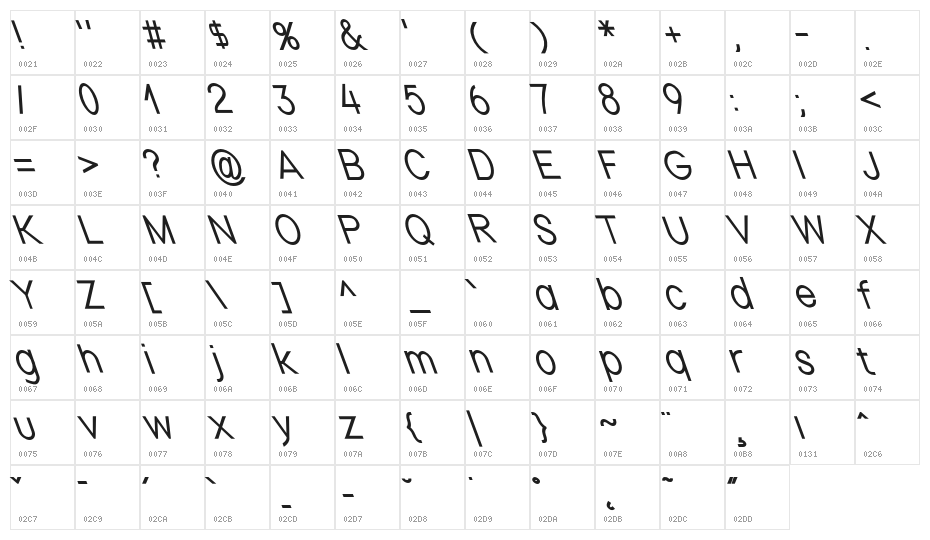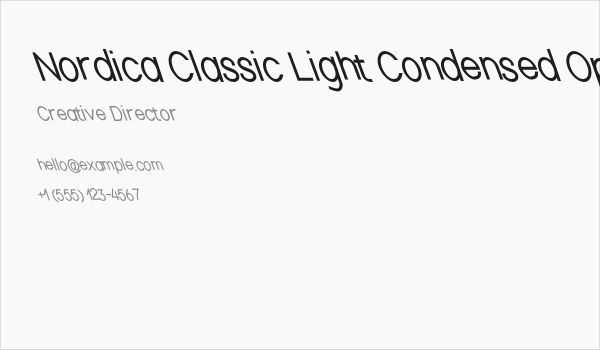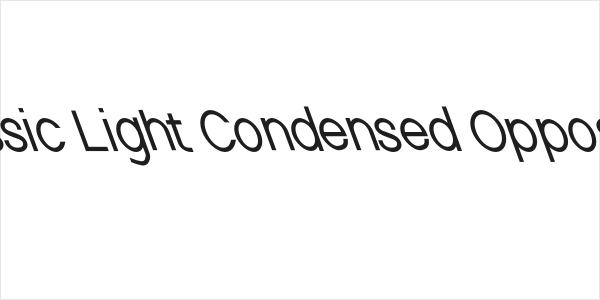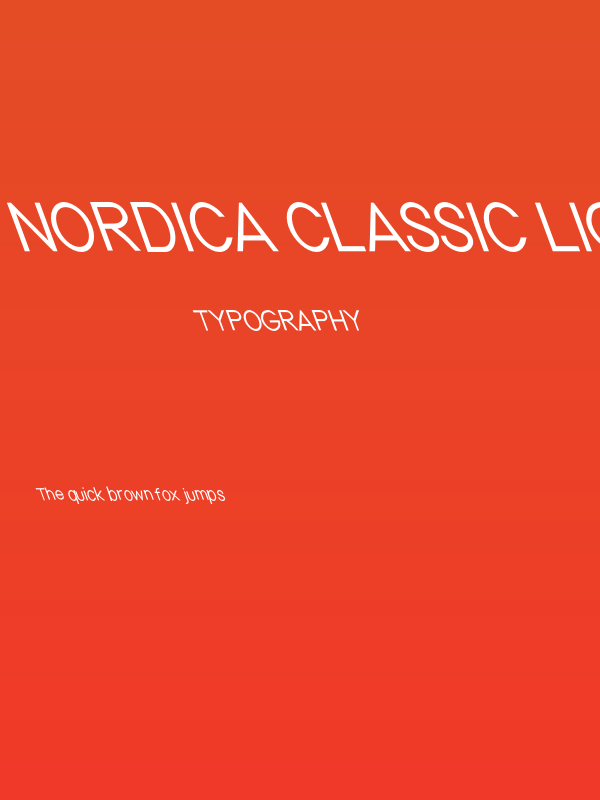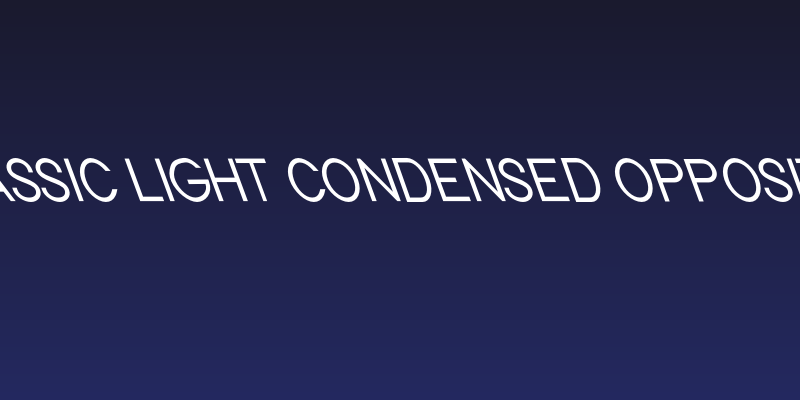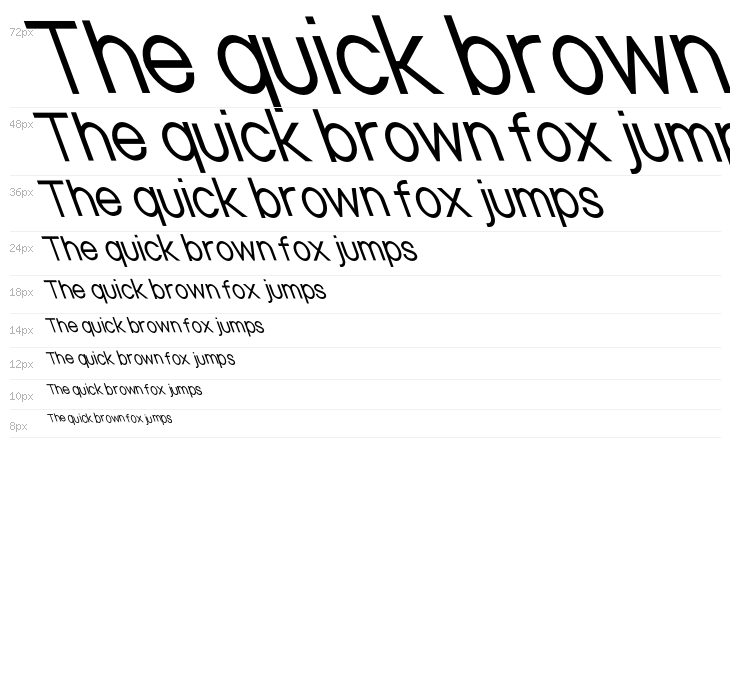
Nordica Classic Light Condensed Opposite Oblique Font
Nordica Classic Light Condensed Opposite Oblique Description
This font features a sleek and modern design with a light weight and condensed width, giving it a refined and elegant appearance. The characters are slightly oblique, adding a dynamic and contemporary feel. The clean lines and minimalistic style make it suitable for a variety of design projects. The uppercase and lowercase letters maintain a consistent style, with smooth curves and sharp angles that enhance readability. The numerals and special characters are designed to match the overall aesthetic, ensuring a cohesive look across all text elements.